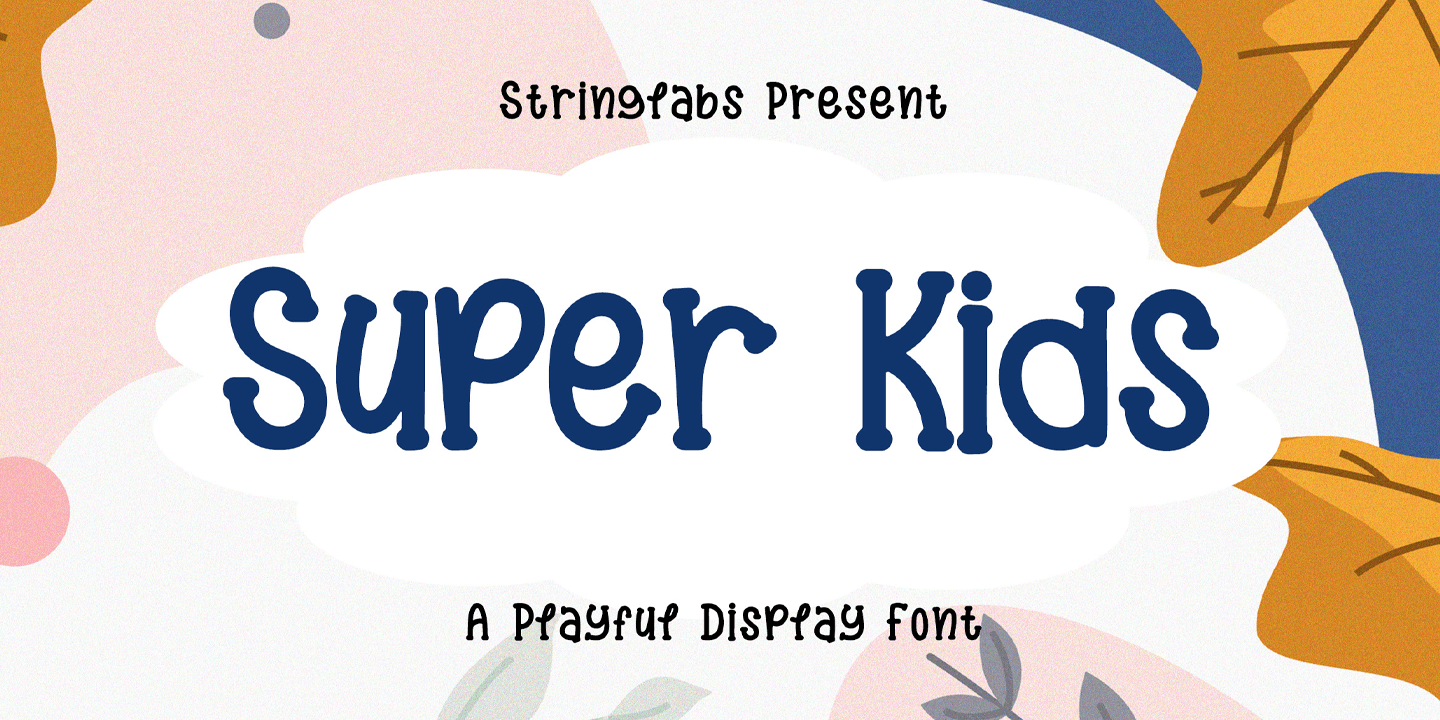
Bring playful energy and vibrant fun to your designs with Super Kids Font Free Download. This cheerful display typeface features bold, rounded letters and a lively, child-friendly style—perfect for children's books, toy packaging, birthday invitations, educational materials, and playful branding. Super Kids Font Free Download captures the spirit of adventure and creativity that kids (and kids at heart) will love.
The bold and bubbly shapes of Super Kids Font ensure maximum readability while adding a joyful, energetic tone to your designs. Whether you're creating colorful posters, classroom decorations, or fun social media content, this font will make your work feel lively and engaging.